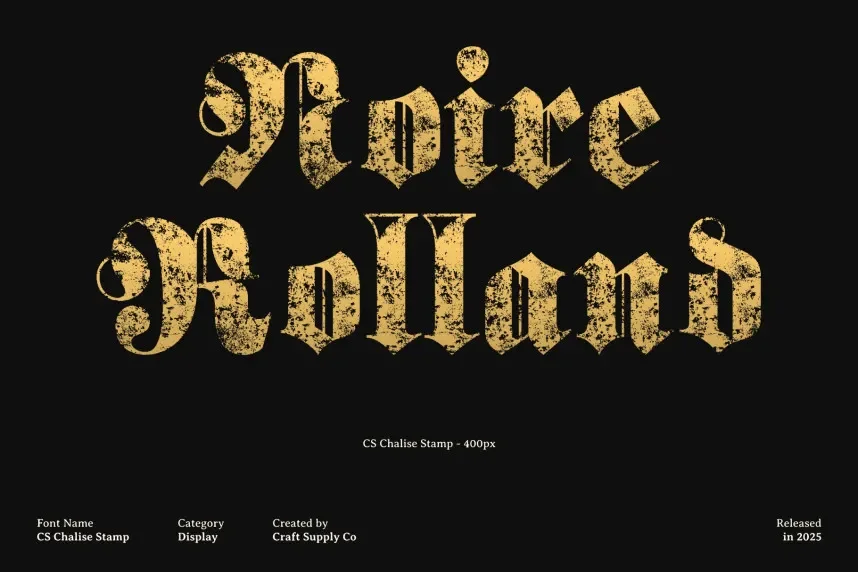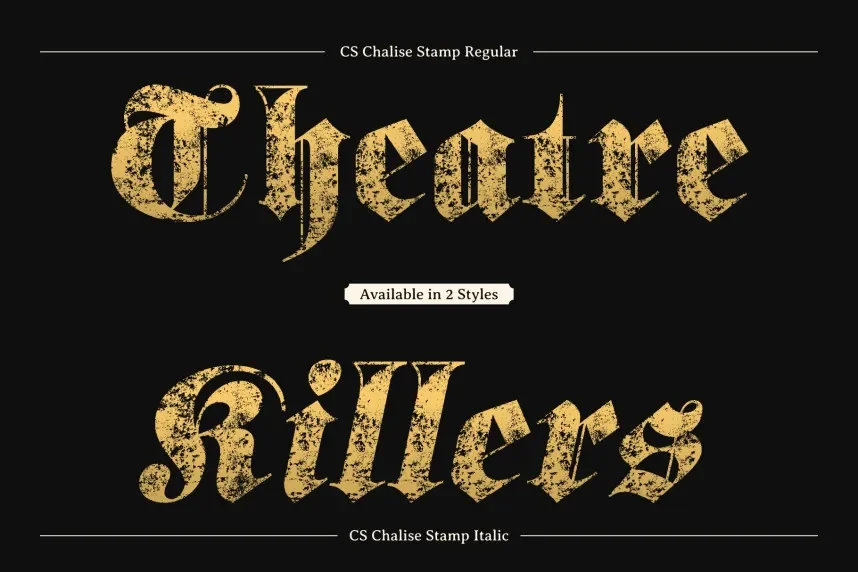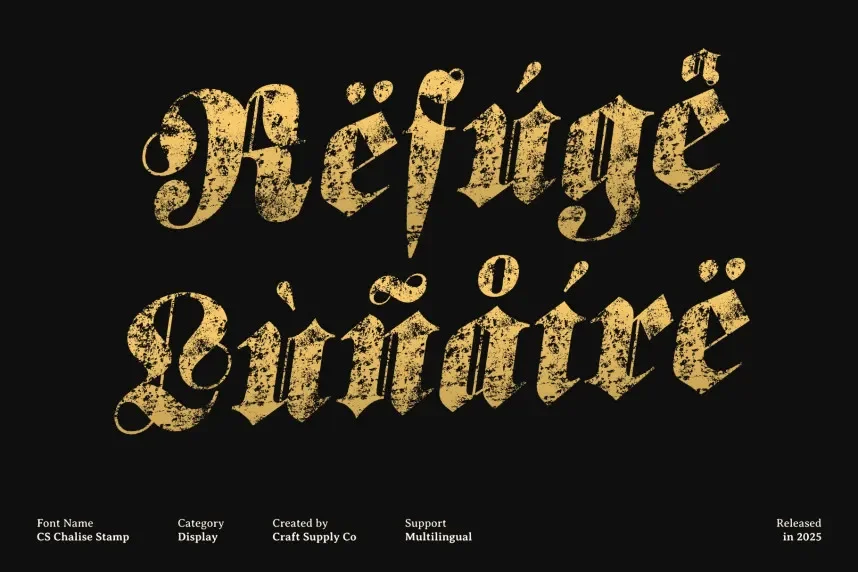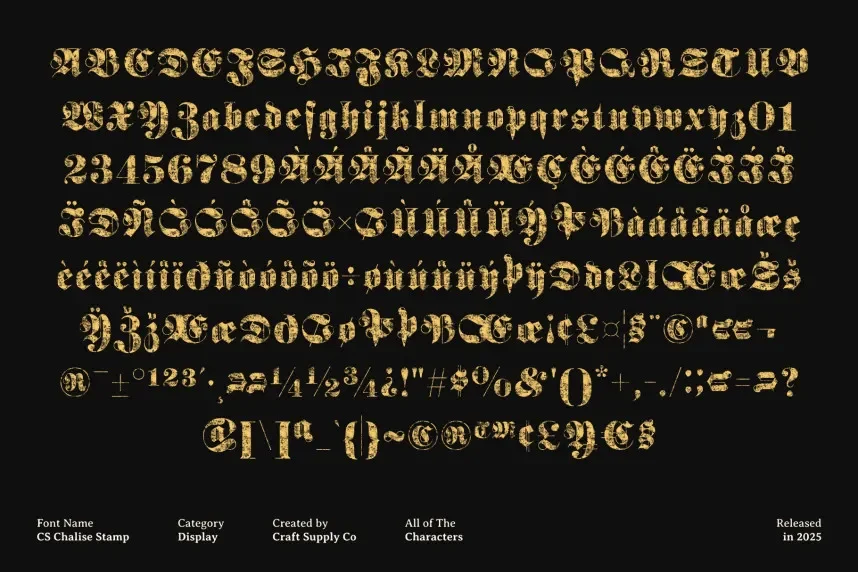
CS Chalise Stamp Font is a playful, sans-serif font with a hand-crafted stamp feel. Its unique, uneven edges add character while maintaining legibility. This font works well for informal branding, creative projects, or fun invitations where personality and style are key.